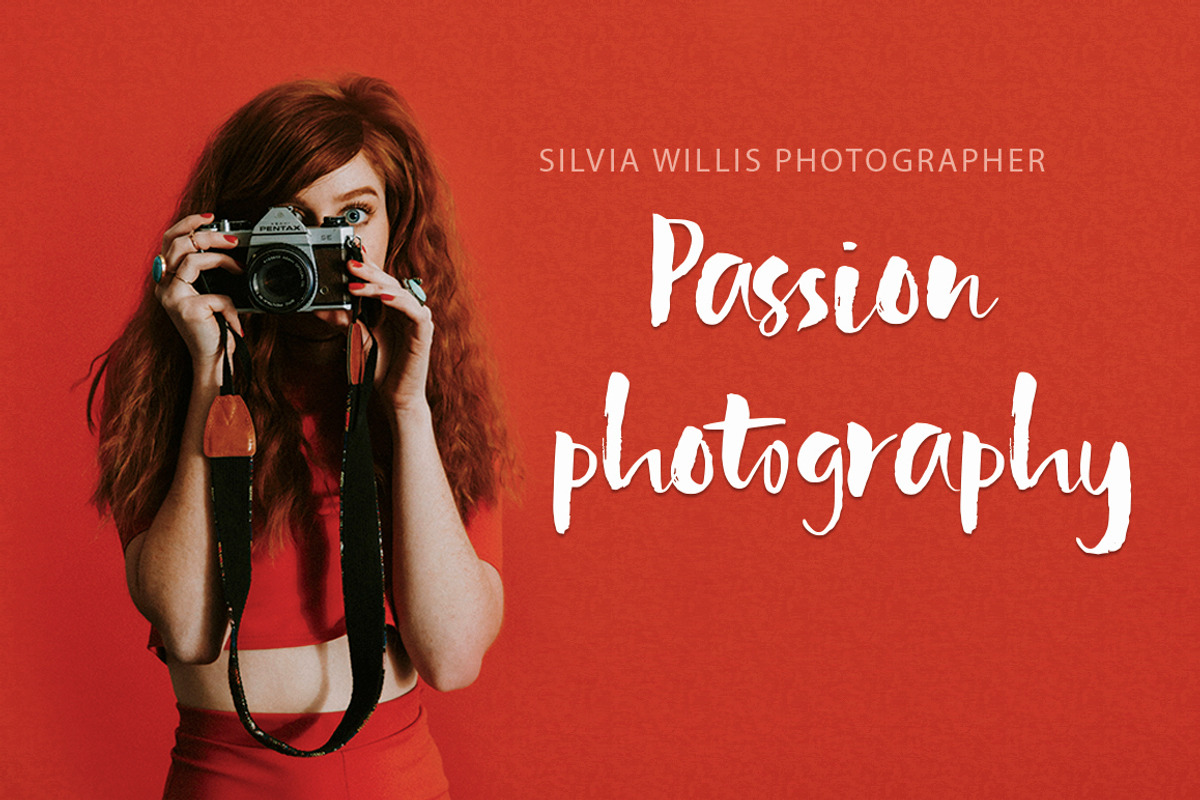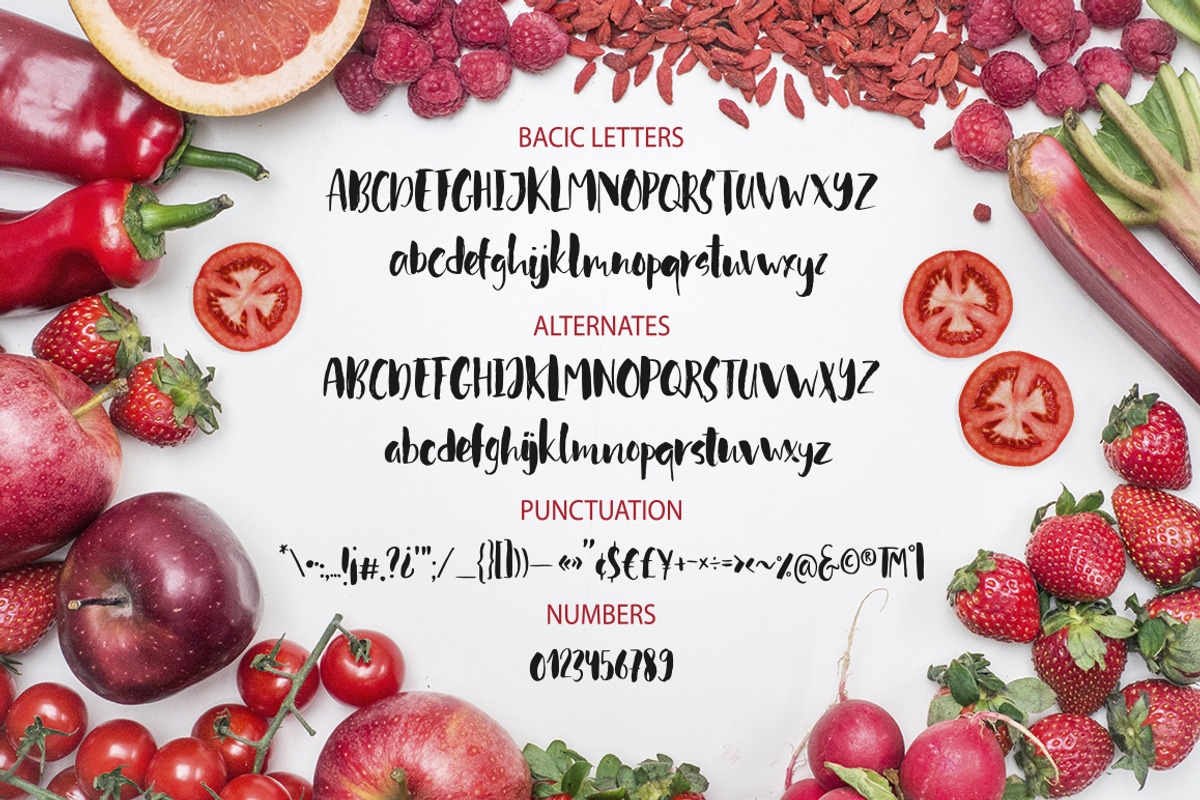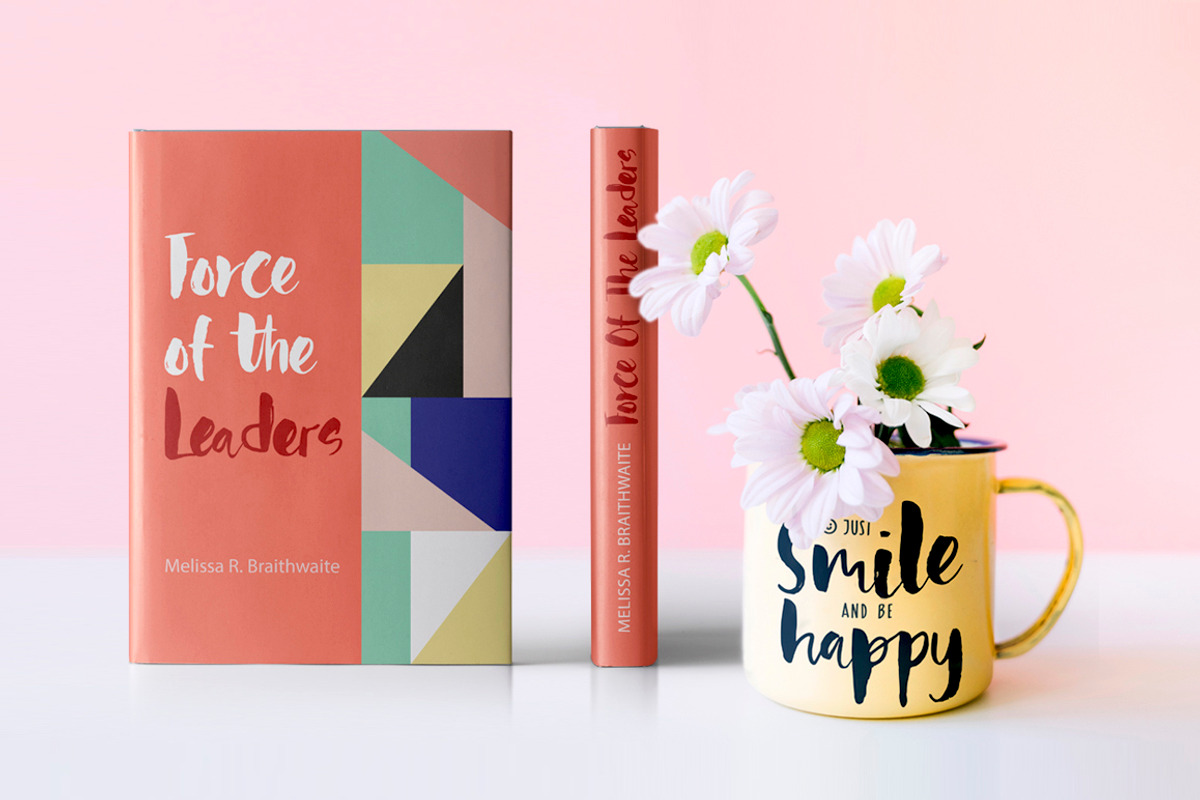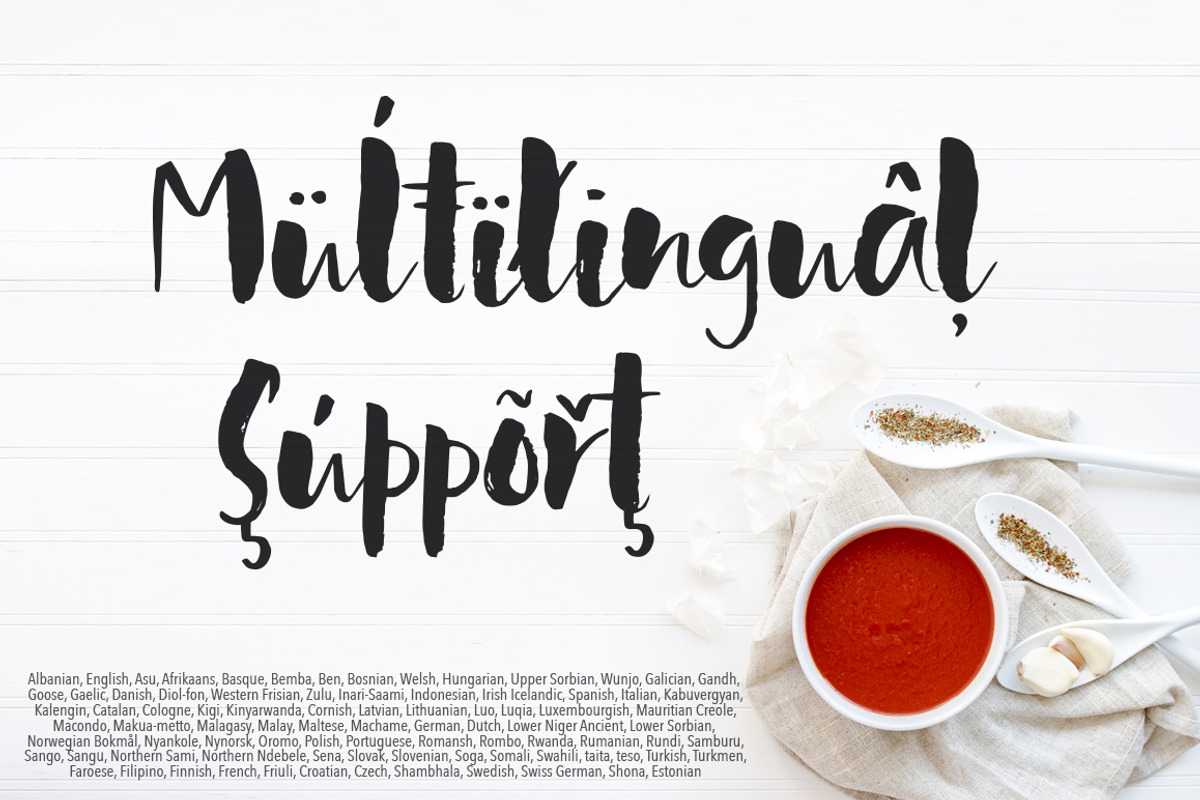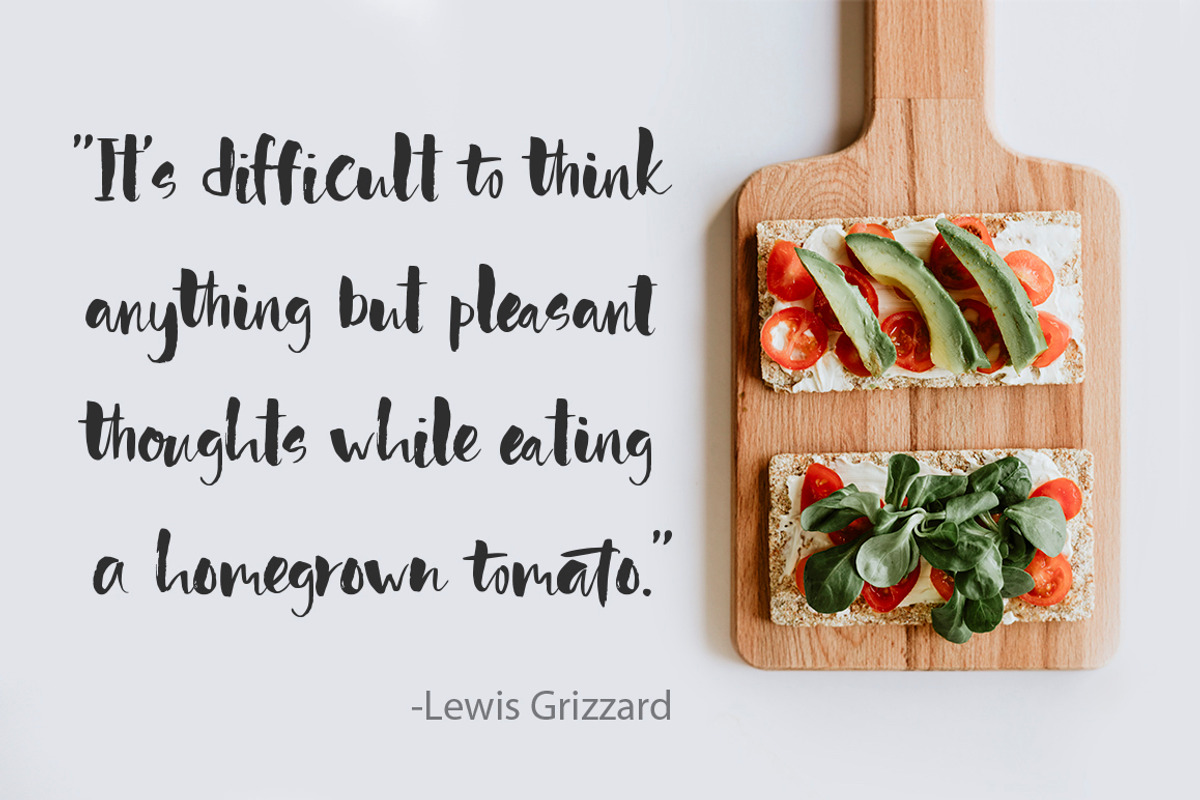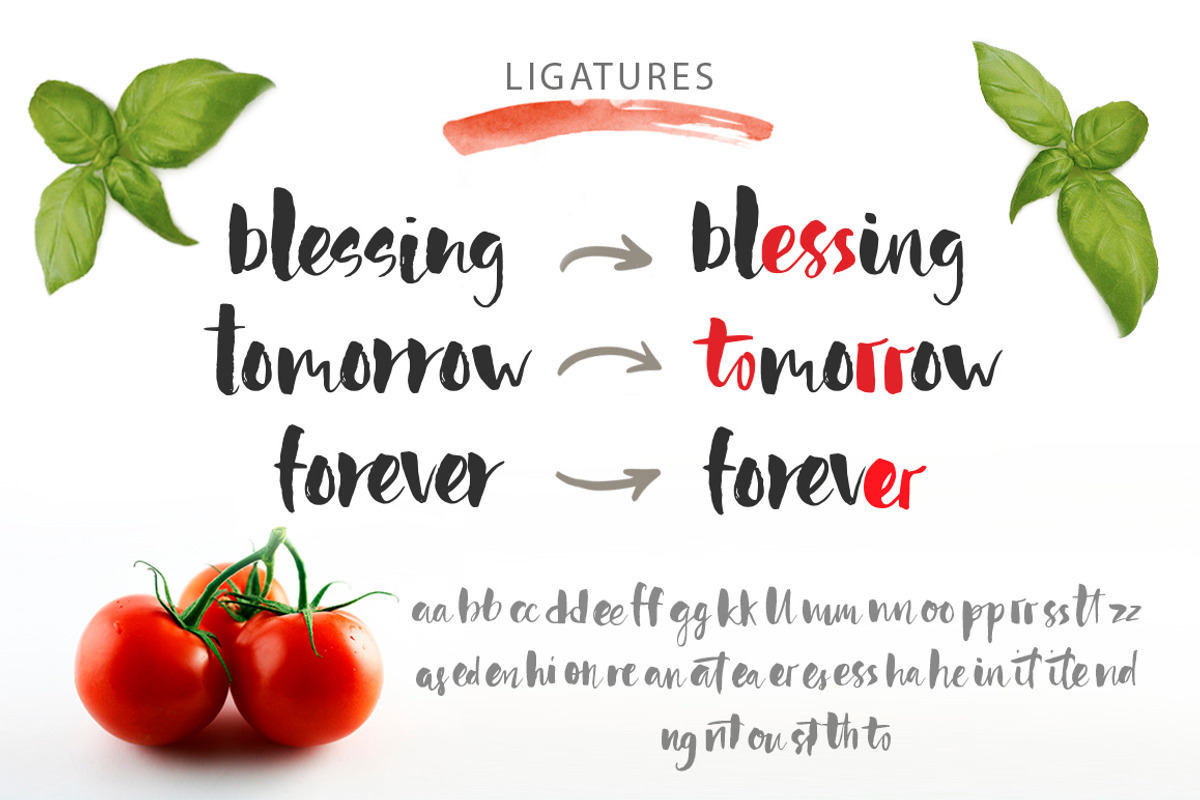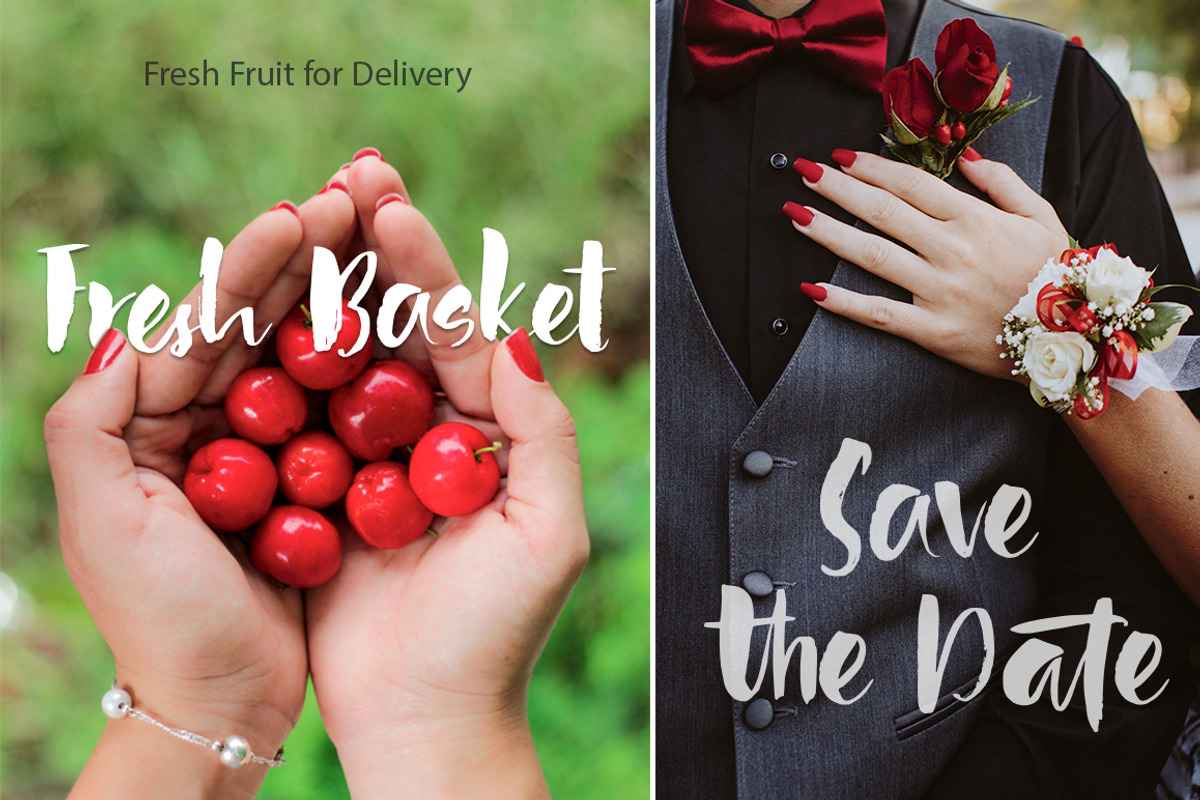
Red tomato. Script font.
🍅Introducing Red tomato!
Red tomato is a playful handdrawn script font created with brush and ink. It has dancing baseline and beautiful handdrawn texture. It’s playful and juicy as summer homegrown tomatoes)))
Red tomato font has full set of lowercase and uppercase alternates and lot of ligatures - so you can imitate lettering.
Goodlooking and creative, it was created for beautiful typographic projects, amazing designs, like greeting cards, t-shirts, posters, mugs, branding materials, photography overlays and so much more!
Font includes multilingual support. Western European, Central European and South Eastern European languages are included. Please type characters in text box below to check any characters you need.